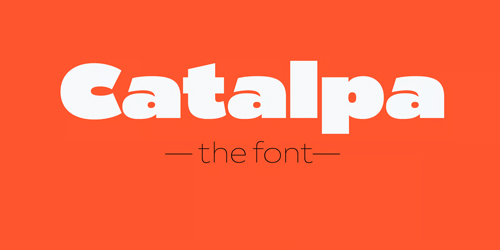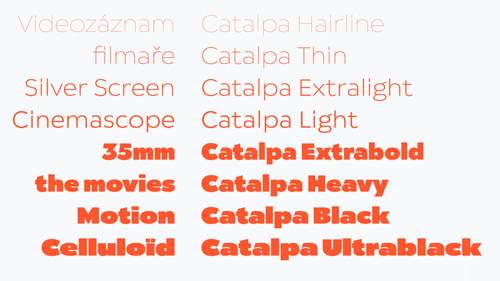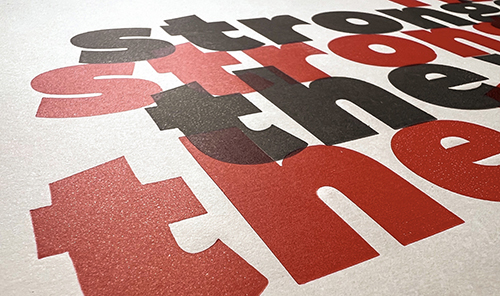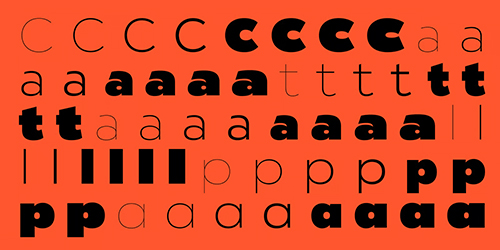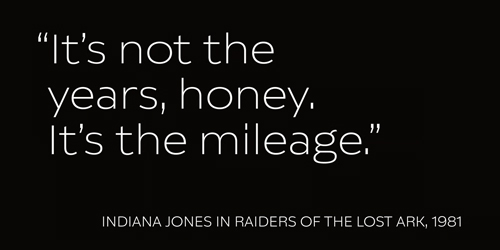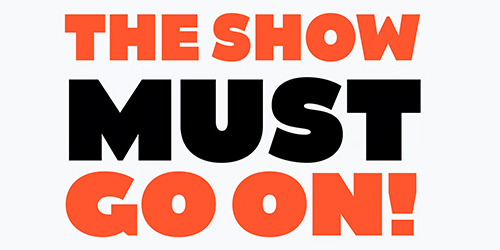
- Catalpa was made to be an overwhelming headliner, like the quirky and hulking wood type that inspired it. With only four thin and four heavy weights, being a display family is its single-minded purpose. Selección Clap, (mention), Mejor diseño de fuente tipográfica para titulares 2020. GOLD Indigo Awards 2021.
- Primed for headlines, Catalpa is designed to give words bulk and width and gravity itself.
- The Catalpa font family is José Scaglione and Veronika Burian’s wood type inspired design for an overwhelming headline presence. It has no regular weights, only four slender and four hulking weights. Catalpa wasn’t made to be normal; it was made to overwhelm, to stand out, to bellow.
- Catalpa is the first font family within a trilogy that will be released through 2020. Each of the three have a distinct purpose and their own look, but they serve a common goal: to act as a complete family covering an editorial’s wide array of needs. As the first of the three, Catalpa is the bookend font family with a headlining purpose.
- What requirements are there for a great headline typeface? Distinction, weight, and cohesiveness are a good start. Its distinctiveness must catch attention, it must have a range of weights applicable to its purpose, and its internal consistency and external look must create a cohesive family. Catalpa is a distinct and unified family whose weights are attuned to its single-minded purpose — headlines and large text.
- Catalpa has only eight styles that are divided into two ranges of weights — four very light weights (Hairline, Thin, Extralight, and Light ) and four very bold ones (Extrabold, Heavy, Black, and Extrablack). The thin and heavy ends of the spectrum also have their own variable fonts, each with one axis of weight so designers can fine-tune their work. The geometric influence of the design is more obvious in the light range, with their line thickness increasing in the classical manner. The bold weights increase more in width and substance to serve well in websites, mobile apps, posters, advertisements, and magazines that aim for impact more than spreading information.
- As a family, Catalpa gels in big headlines, short sentences, and isolated words. The family has many recognizable features, in the bolder weights especially, like the reversed contrast ‘S, s’ or the angular design of ‘Q, M, W, w, a, f, 2, 3’. Catalpa’s headlining mixture of geometry and quirkiness leaves an impression that is so characteristic of wood type, but designed for substrates and screens.